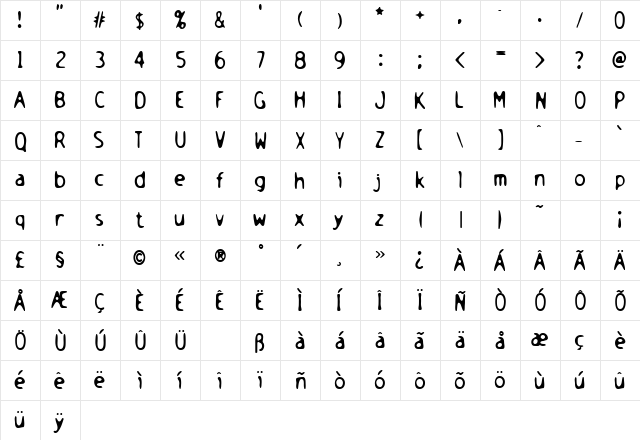
Holsteinkern Regular
Design Context for Holsteinkern Typeface
Holsteinkern is a composed and adaptable typeface that performs quietly and consistently across a wide range of design contexts.